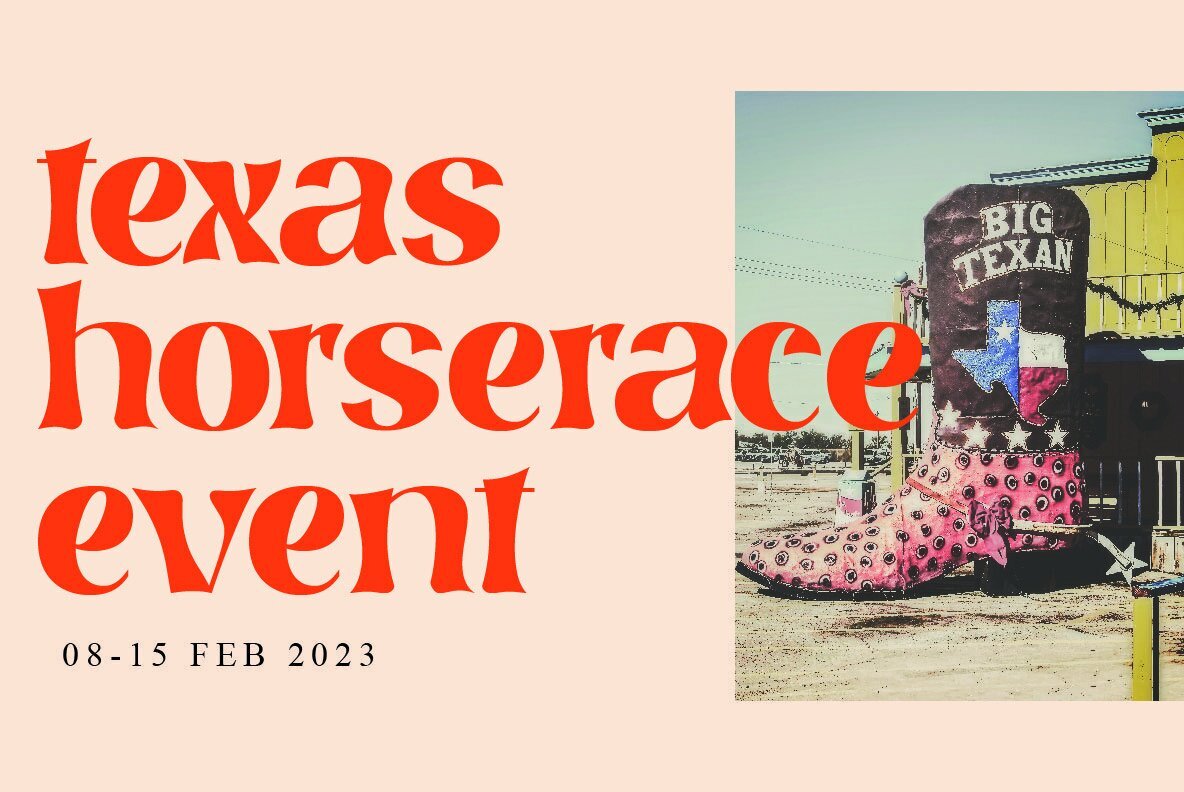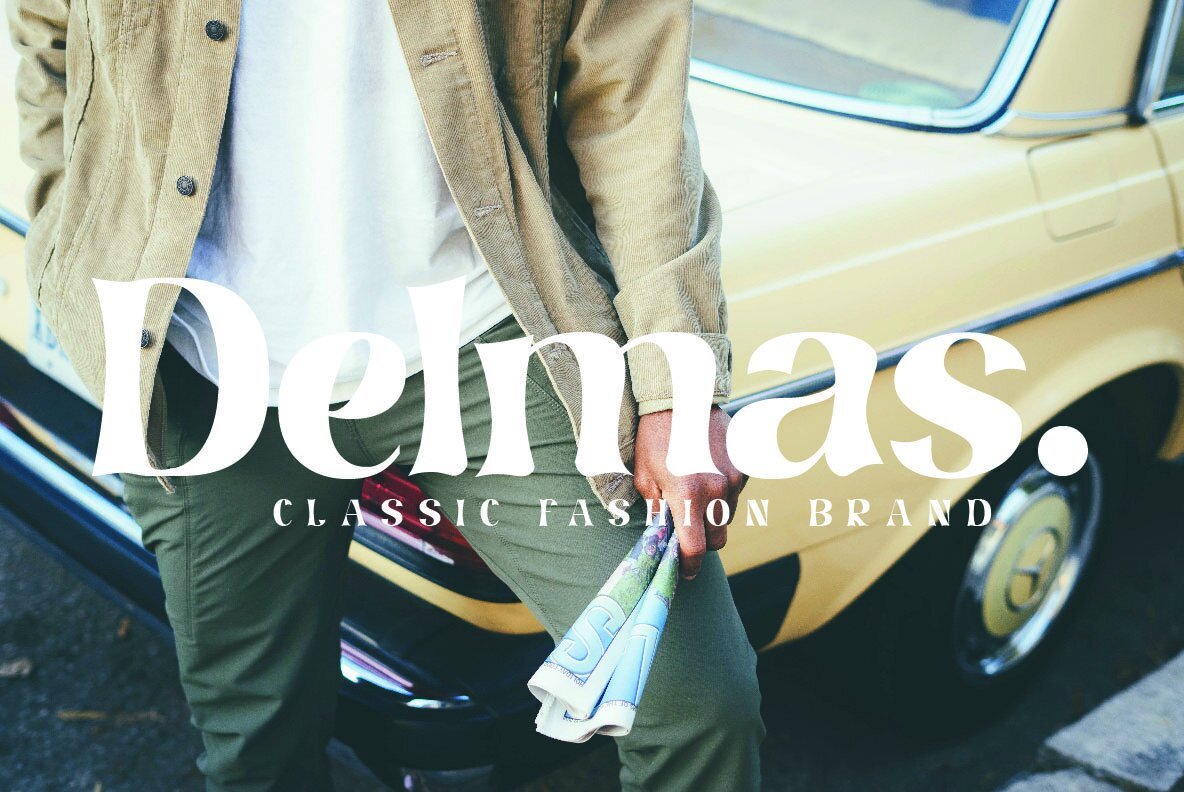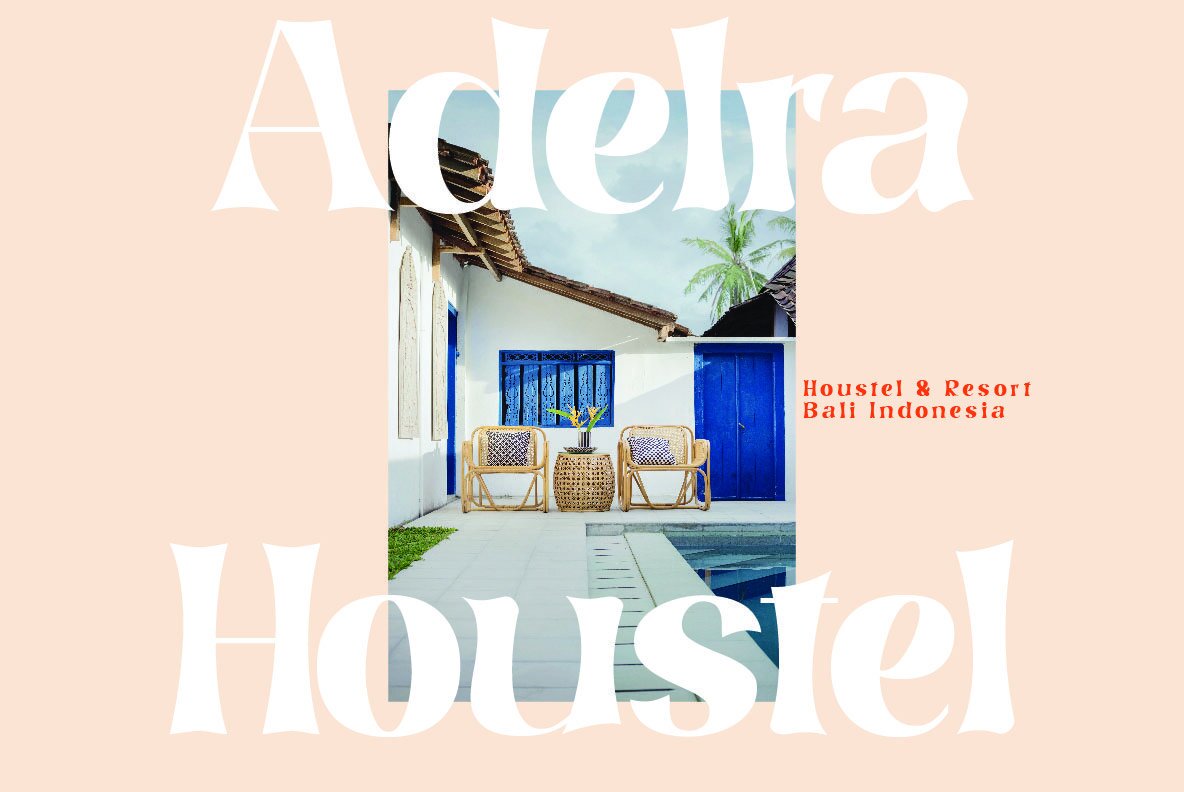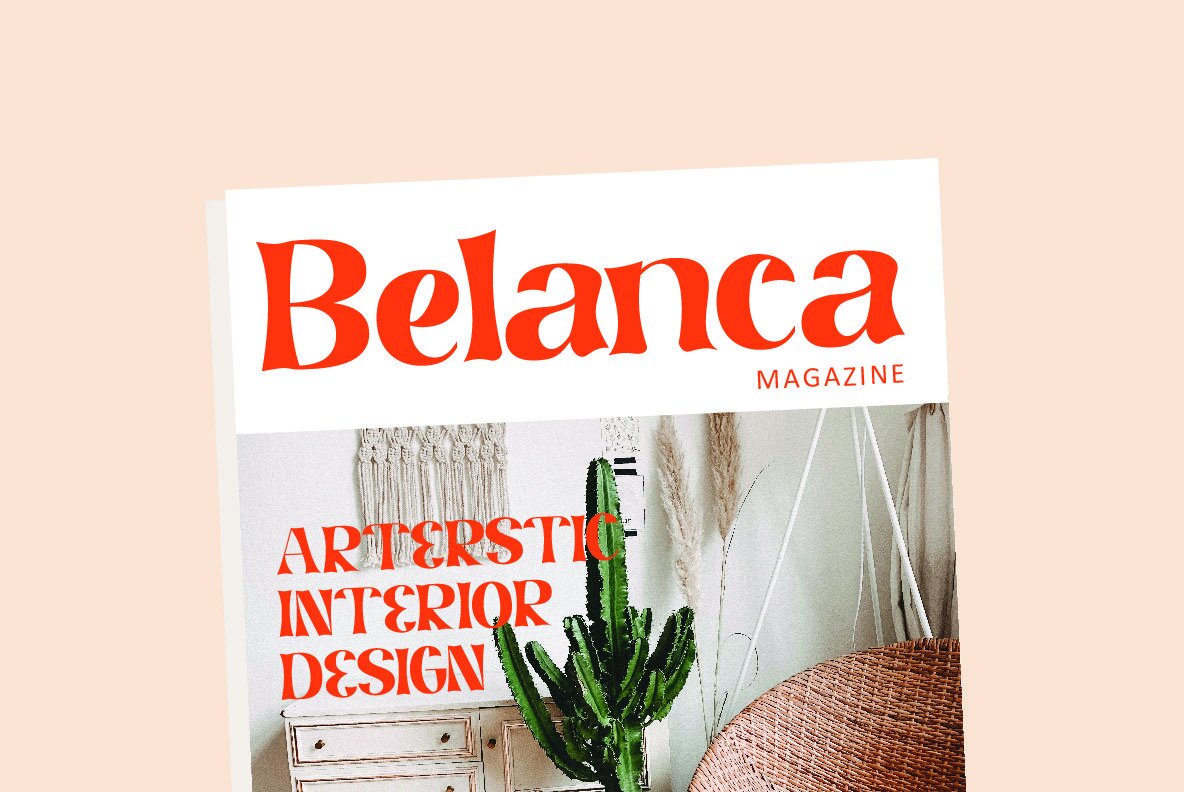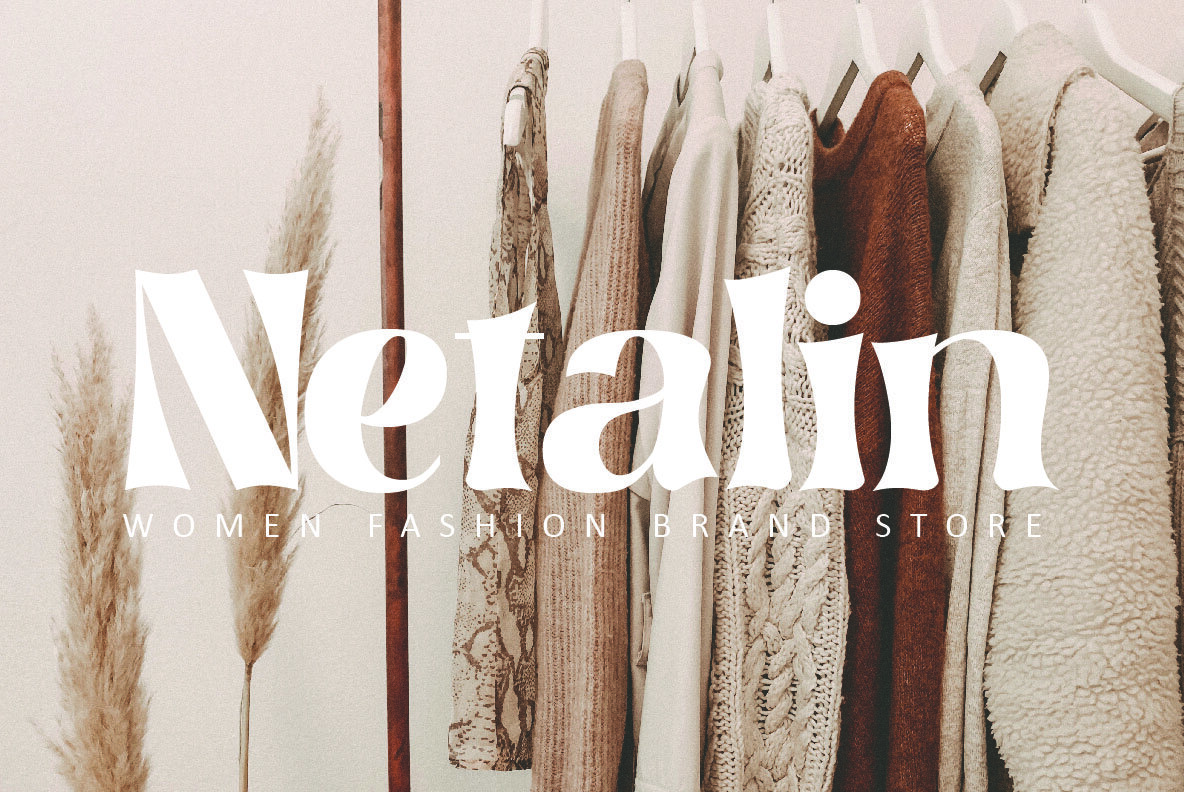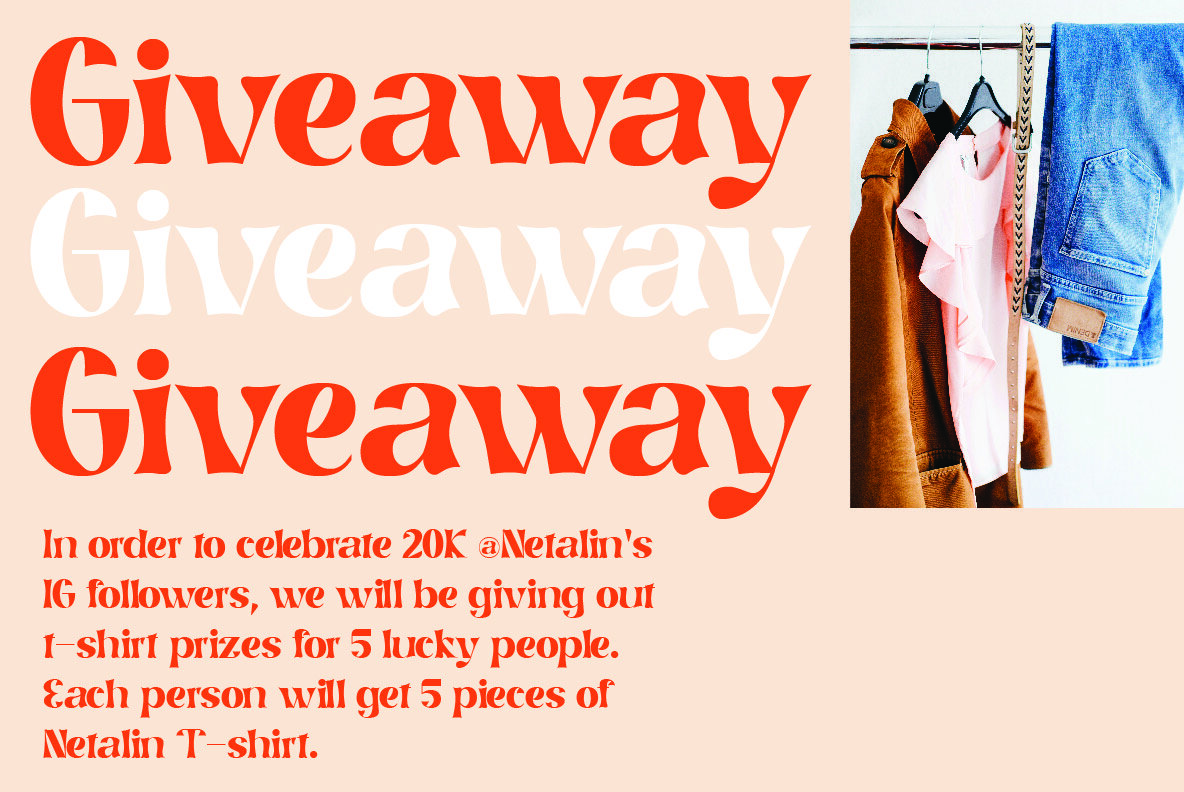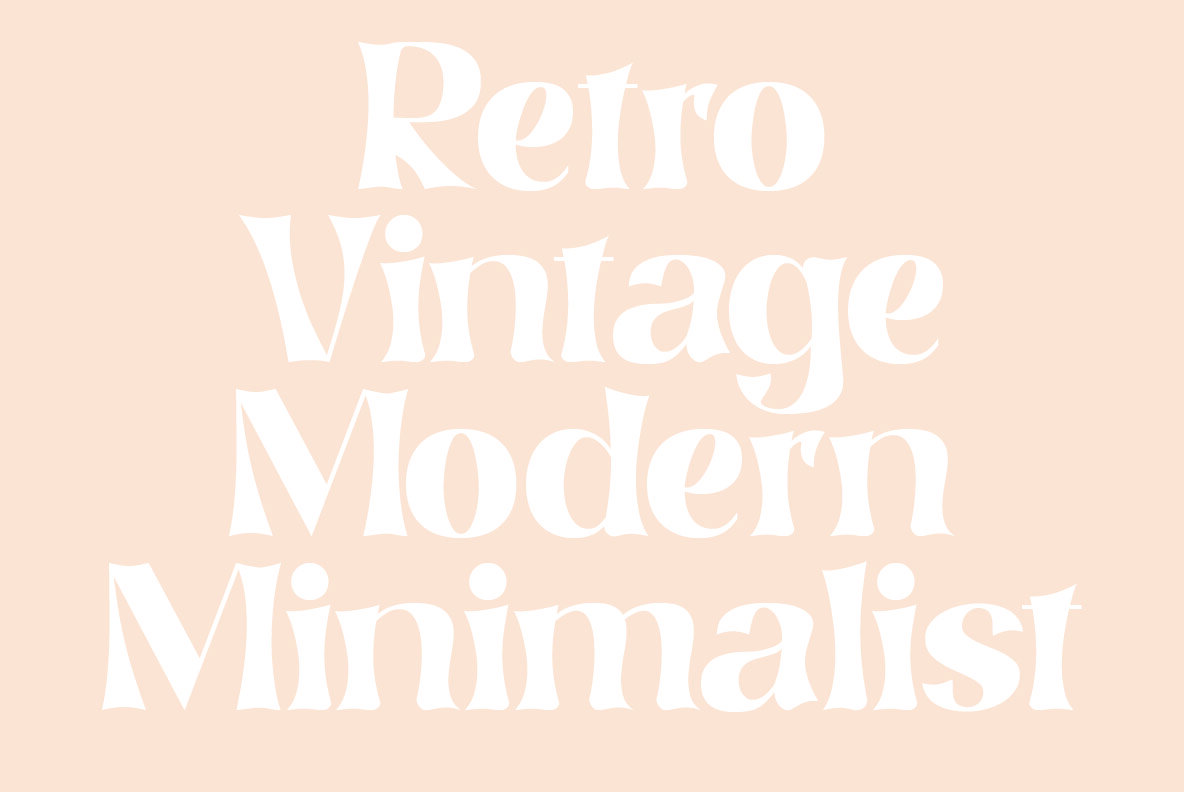
Cydnel Font
Cydnel Regular
Cydnel by Muksal Creative offers a perfect blend of modernity and nostalgia, making it a versatile choice for designers. This elegant font features special glyphs and ornaments, enhancing its appeal across different design contexts. Whether you're working on editorial projects, logo designs, clothing branding, product packaging, or magazine headers, Cydnel adds a sophisticated touch to any project. It is ideal for both large and small text, ensuring readability and style. Experience the charm of Cydnel, a font that harmonizes well with different aesthetics while delivering functionality and style.Cydnel: A Modern Vintage Typeface